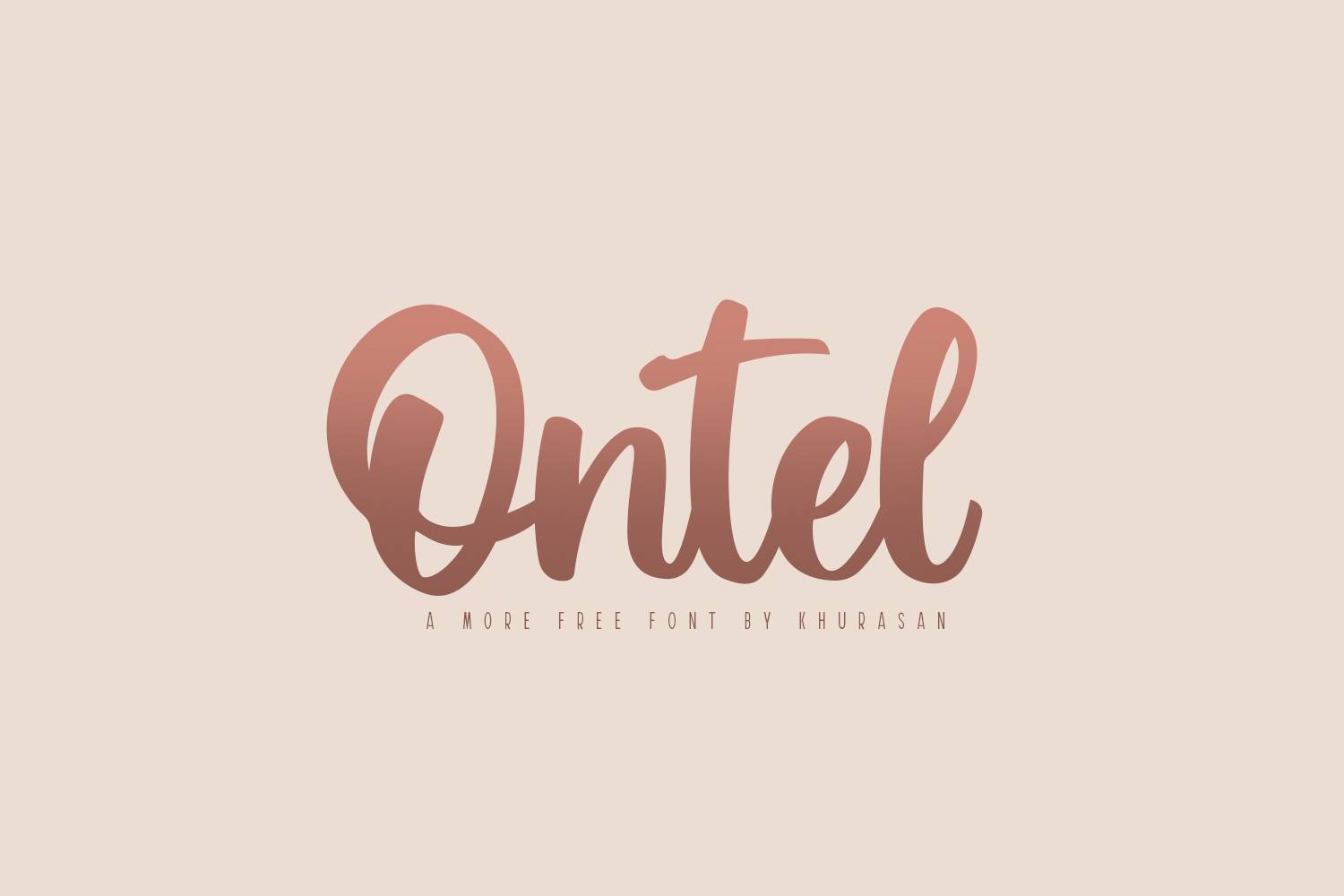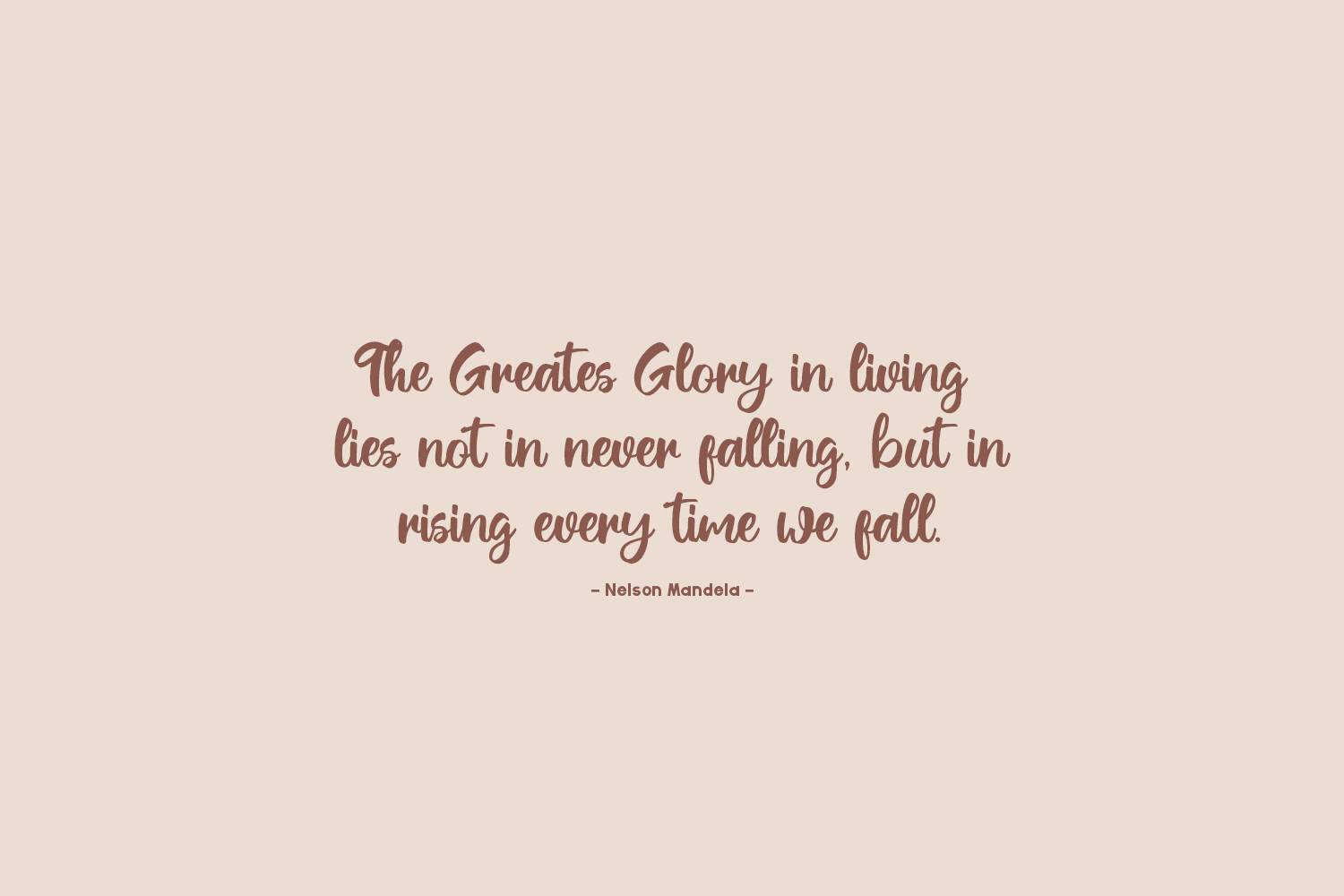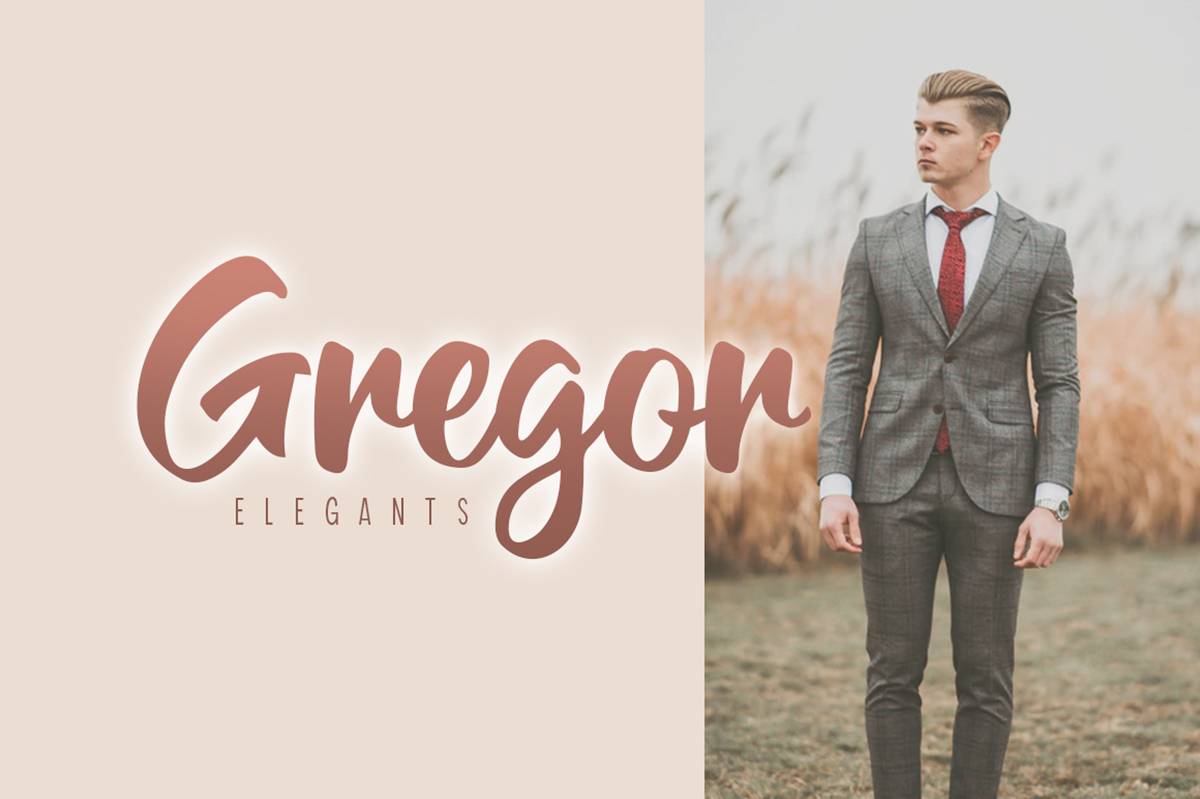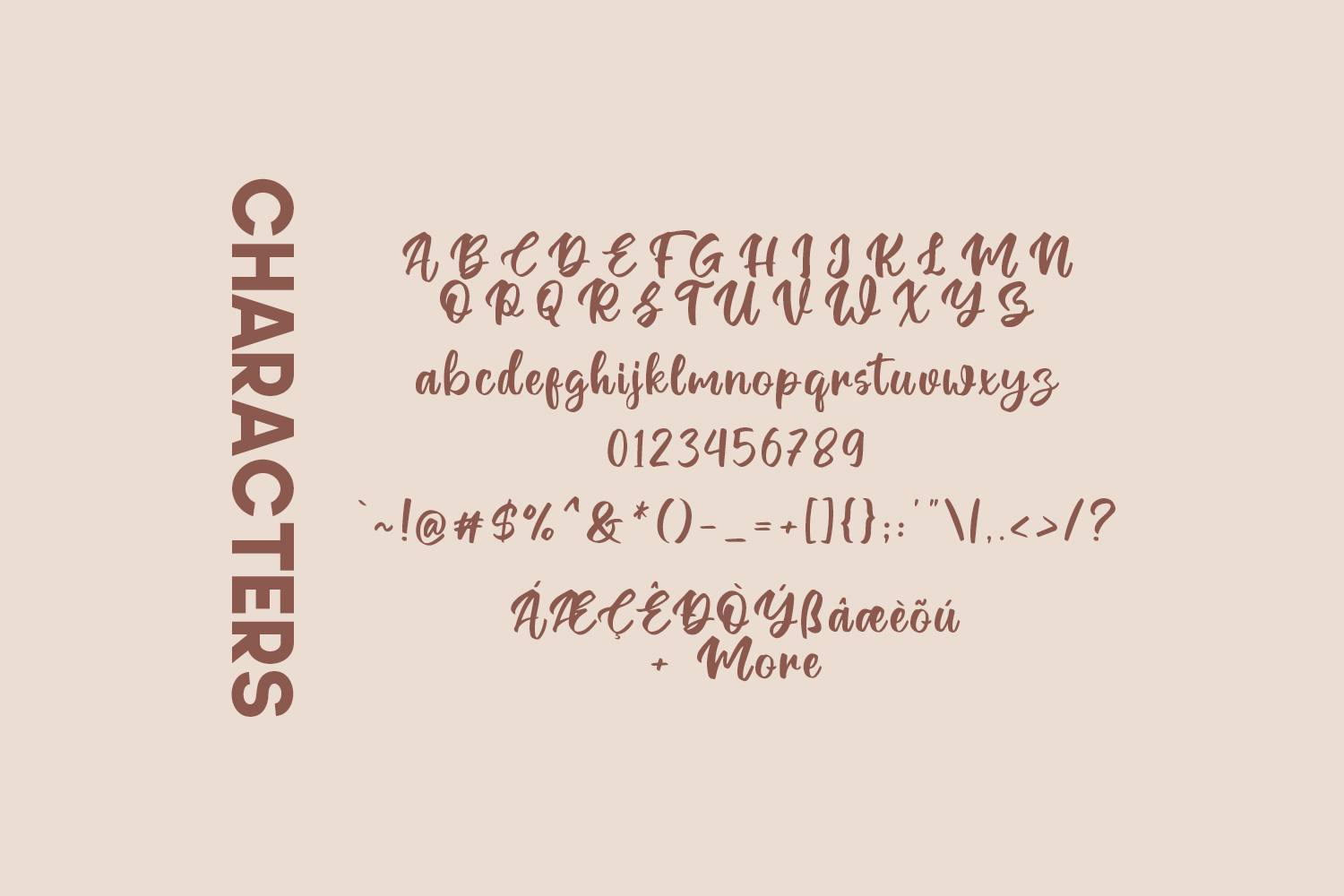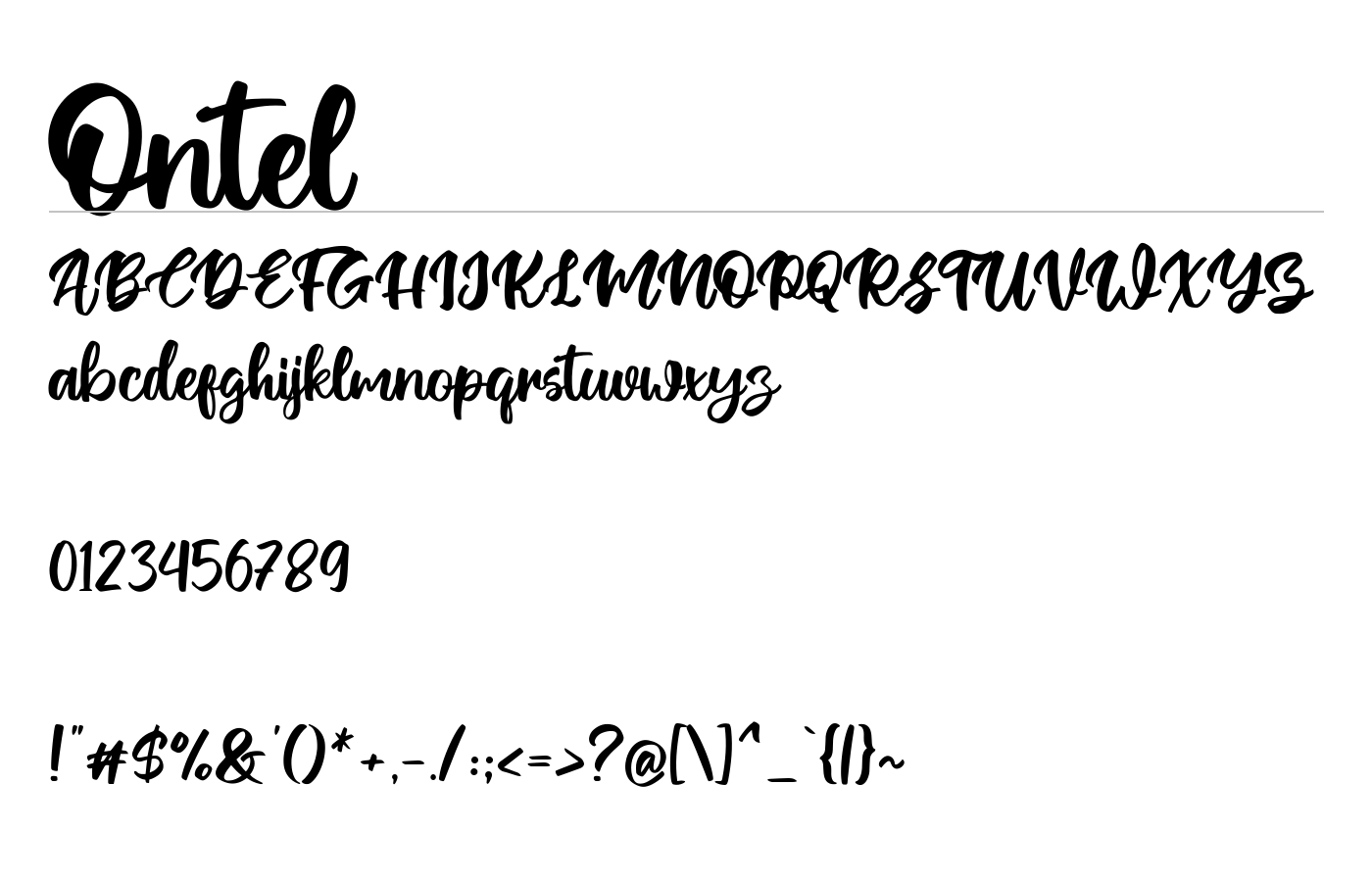
Ontel Script is a lively, modern script font characterized by its bold, brush-like strokes and natural, flowing forms that mimic hand lettering. Its medium weight and moderate contrast create a friendly yet dynamic feel, making it ideal for branding, invitations, and social media where a personal, artistic touch is desired. This font’s energetic style lends itself well to creative projects seeking a casual, confident, and approachable vibe.
Ontel Script Font
About Ontel Script Font